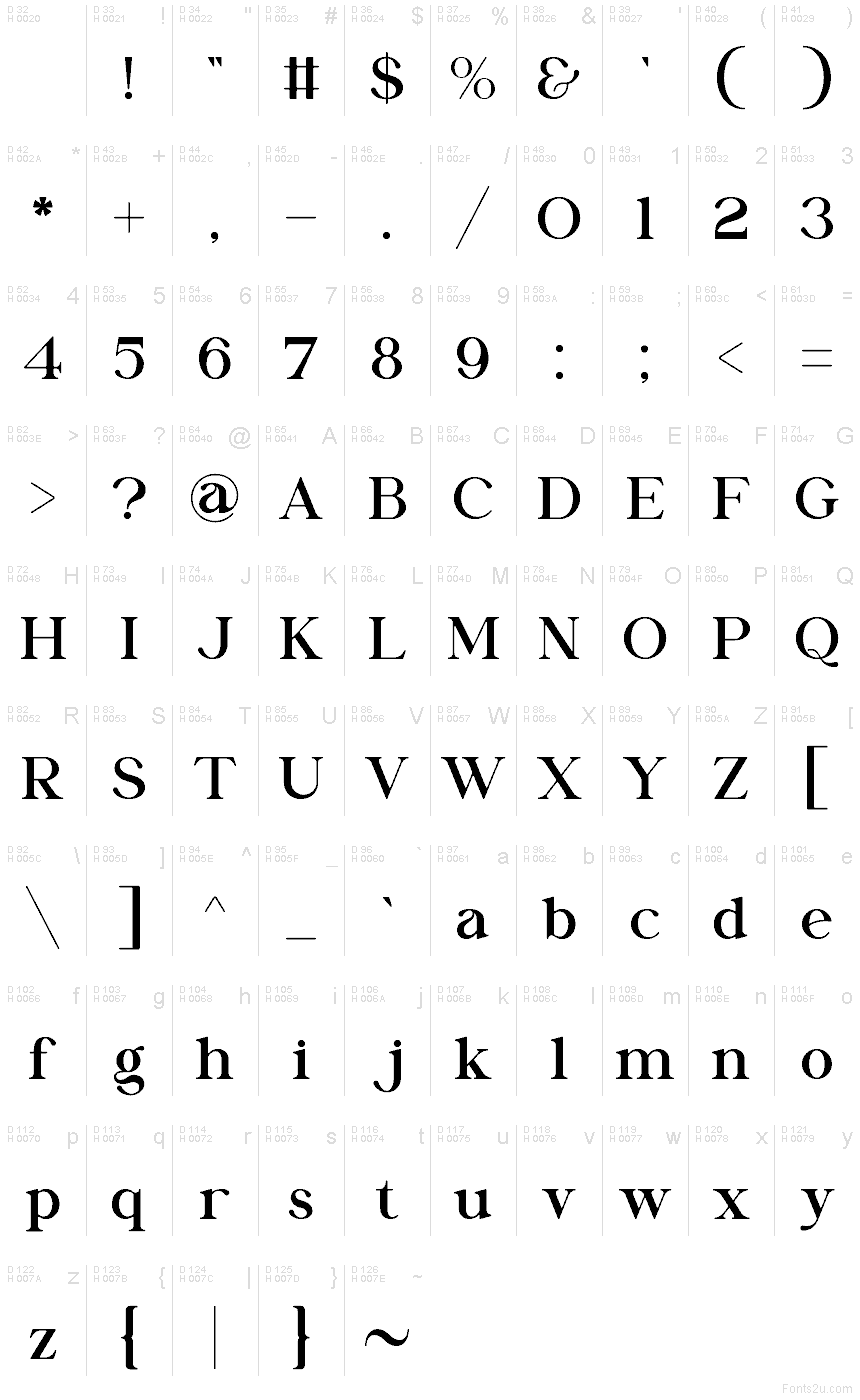
Hazeon
Hazeon font by Slide Shoot Type is an elegant serif typeface that combines sophistication and modern aesthetics. It presents a refined look with classic influences, offering a touch of elegance in every stroke. This free serif font can seamlessly integrate into projects requiring a stylish edge.